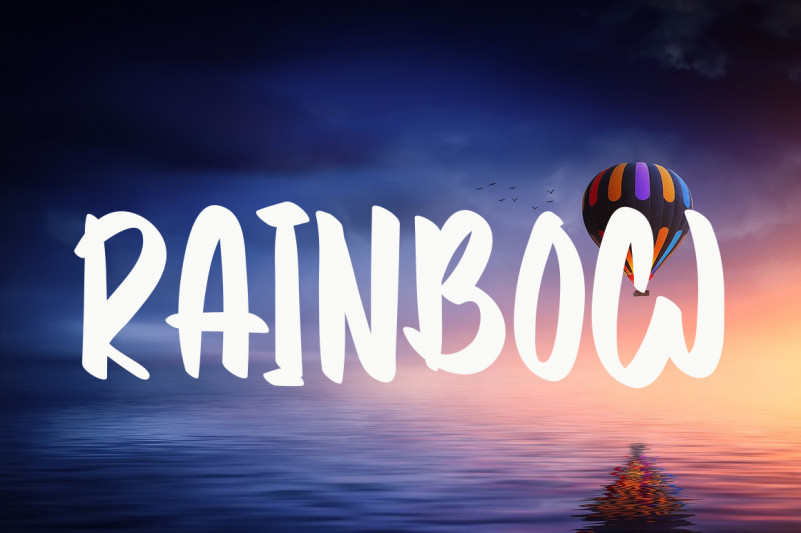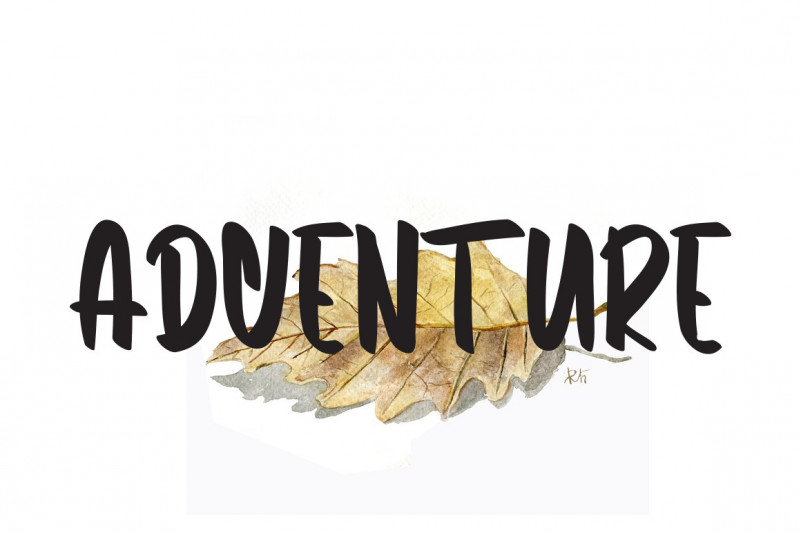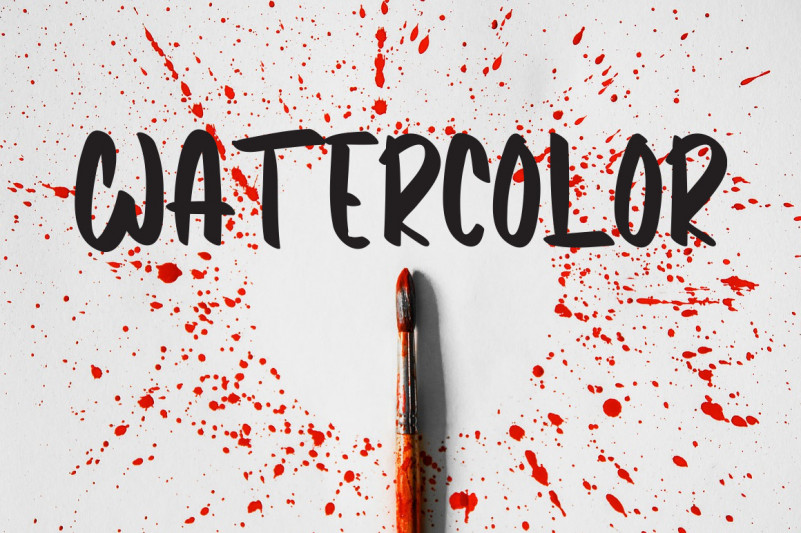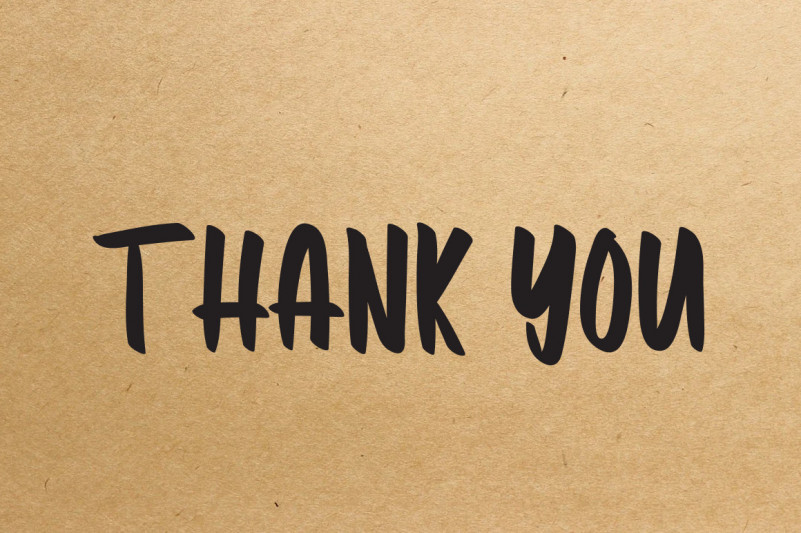
Island Rainbow Font
Island Rainbow Script Font
This is a bold and casual handwritten font. No matter the topic, this font will be an incredibly asset to your fonts’ library, as it has the potential to elevate any creation.